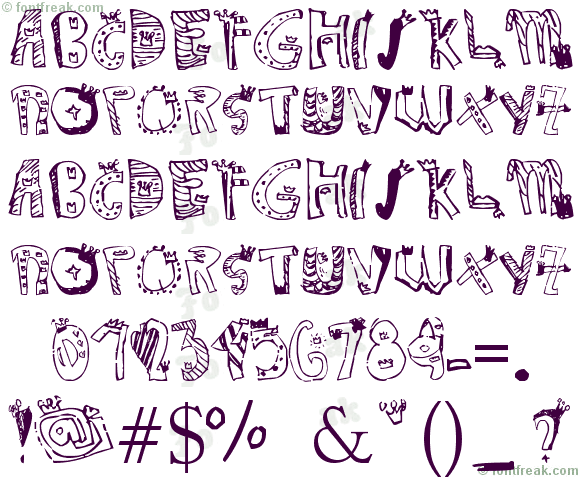
Crown Doodle {denne}
About Crown Doodle {denne}
Crown Doodle {denne} by Denise Bentulan is a captivating decorative typeface that brings a playful and whimsical flair to any design project. This font stands out with its unique hand-drawn aesthetic, characterized by varying stroke weights that create a lively and dynamic appearance. The letters are embellished with charming doodles and decorative elements, giving them an artistic and fun vibe. The spacing is well-balanced, allowing for readability while maintaining a casual, lighthearted feel.
Ideal for a range of creative applications, Crown Doodle {denne} shines in wedding invitations, where its playful nature can complement romantic themes. It also works beautifully for children's book covers, lending a sense of imagination and creativity to the designs. Restaurant menus can benefit from this font's distinctive look, making the dining experience feel more inviting and fun. Additionally, it suits promotional materials for craft fairs or art festivals, where a vibrant and artistic touch is essential to attract attention.
Targeted primarily at graphic designers, small business owners, and content creators, this font provides a versatile option for those looking to infuse their projects with personality and charm. It appeals to anyone who values creativity and wants to make an impression through their typography choices.